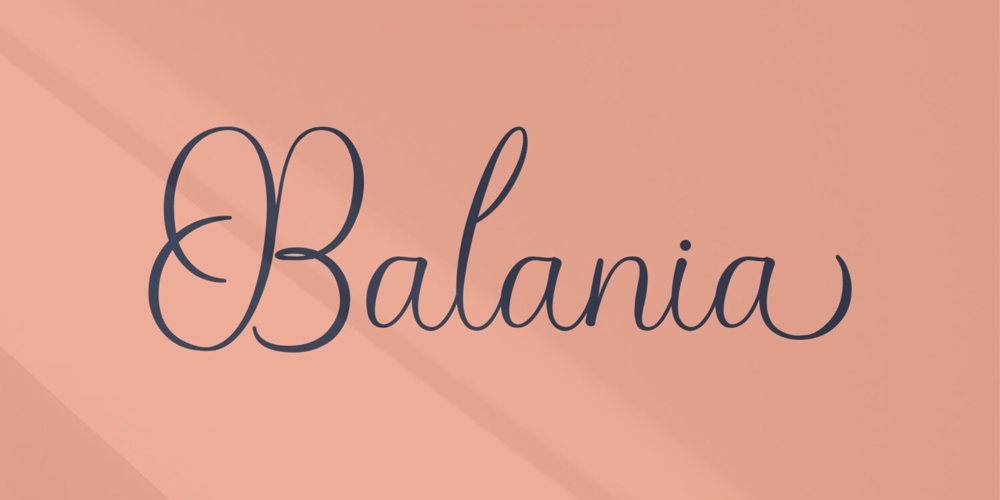
Balania Font Family was designed by Irpan Maulana and published by Sabrcreative. Balania contains 1 styles and family package options. Welcome to Sabr Creative, your source for artistic fonts that captivate the eye and enhance your designs. Introducing Balania, a stunning script swash font that exudes elegance and flair. Crafted with precision, Balania is designed to add a touch of sophistication to your projects, from wedding invitations to branding materials.